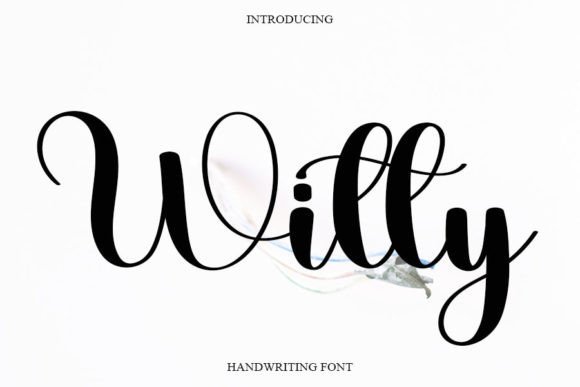
Introduce Yourself to Witty Font, Your Personal Handcrafted Calligrapher
In a world saturated with generic and impersonal fonts, Witty Font breaks the mold. This enchanting handwritten script doesn't just add words to your designs; it infuses them with personality and allure. Experience the unmatched elegance of Witty, where each letter dances along the baseline, enticing readers with its captivating rhythm.
Spark Your Designs with Playful Sophistication
Uniquely crafted to lend an aura of luxury to your design endeavors, Witty Font elevates every project with its charm and grace. Picture wedding invitations that radiate timeless elegance, social media posts that sizzle with personality, or business cards that leave a lasting impression. With Witty, your designs won't just communicate — they'll captivate.
A Cherished Companion for Tattoo Aficionados
For tattoo enthusiasts seeking a font that encapsulates their individuality and artistic flair, Witty Font emerges as the perfect partner. Its intricate strokes and graceful curves transform words into works of art, effortlessly capturing the essence of self-expression. Unleash your creativity and let your tattoos speak volumes with Witty's enchanting calligraphy.
Make Your Mark in the World of Digital Art
Unleash your inner artist and venture into the realm of digital art with Witty Font as your creative ally. Create stunning digital paintings where each stroke carries the essence of your imagination. Design captivating logos that stand out from the crowd, and let your illustrations bloom with the beauty of Witty's timeless script.
Embark on an Enchanting Journey with Witty Font
Witty Font is more than just a collection of letters; it's a portal to a world where creativity flourishes, individuality shines, and art takes center stage. It's an invitation to let your imagination run wild, to embrace the unique beauty of handwritten calligraphy, and to create designs that leave an everlasting mark. Embrace Witty Font today and open the door to a world of artistic possibilities.